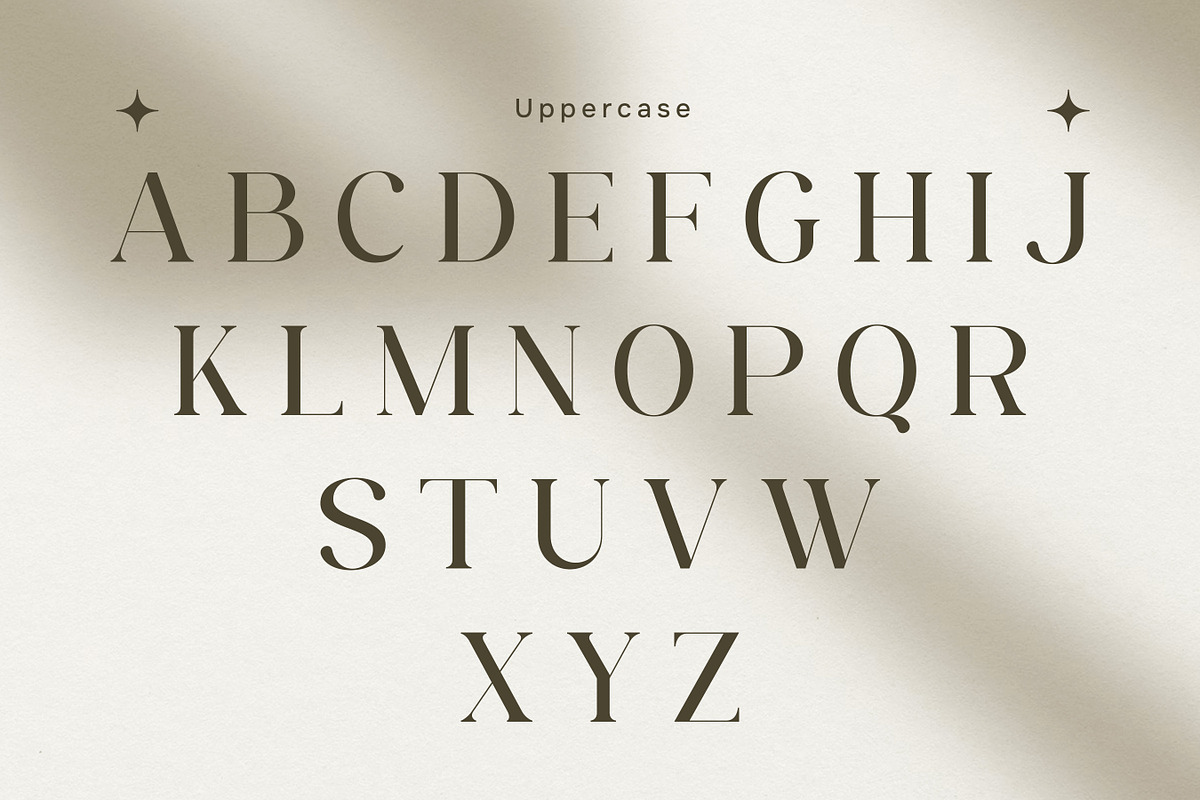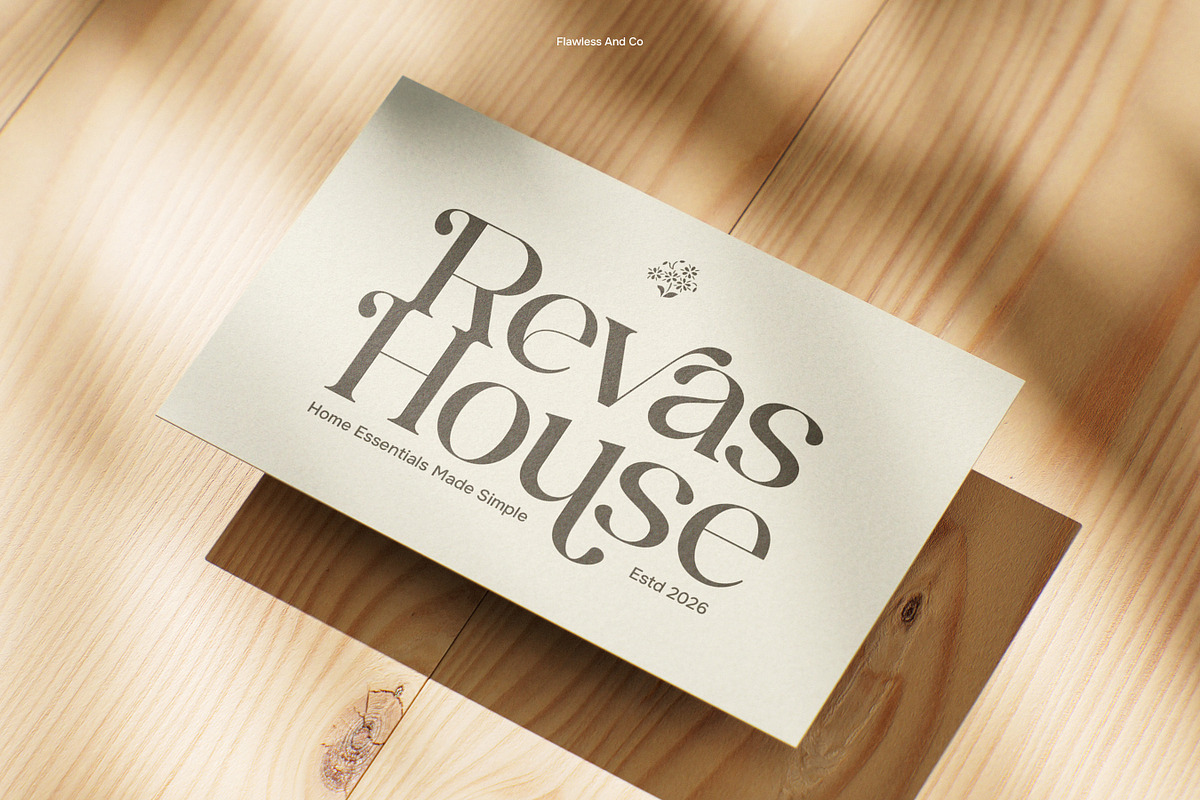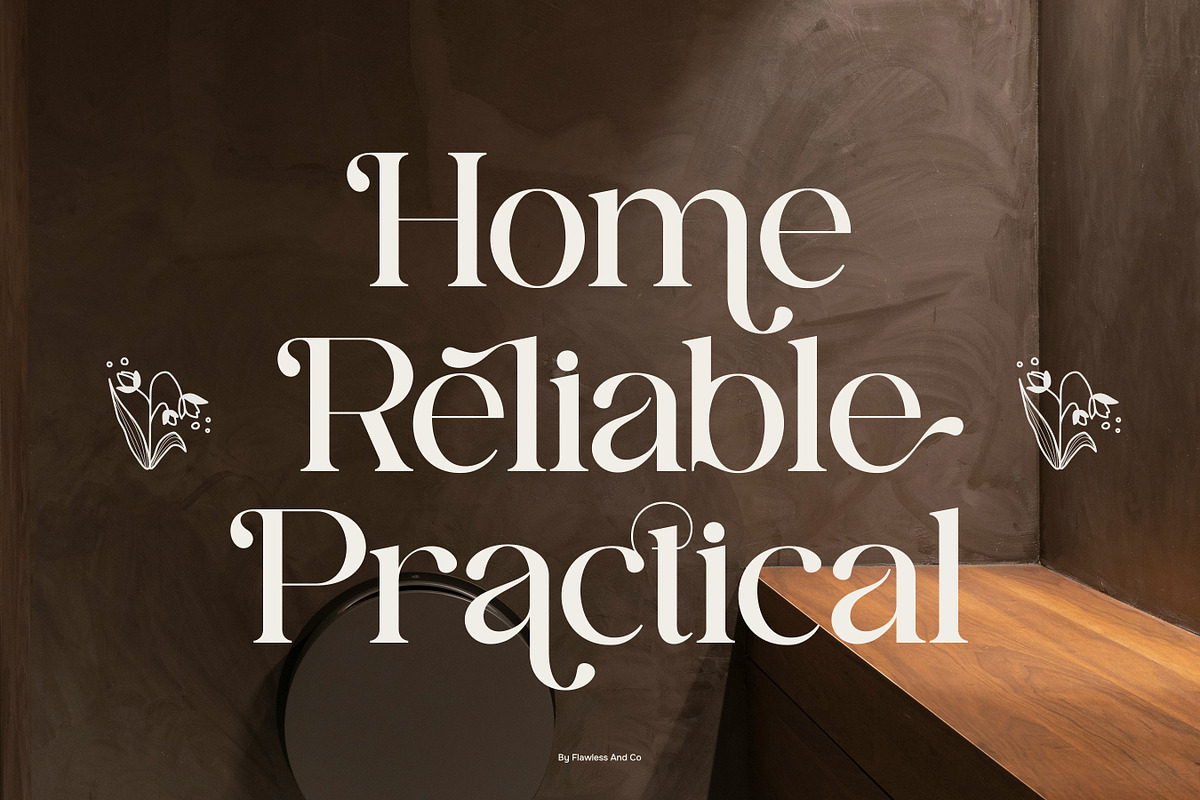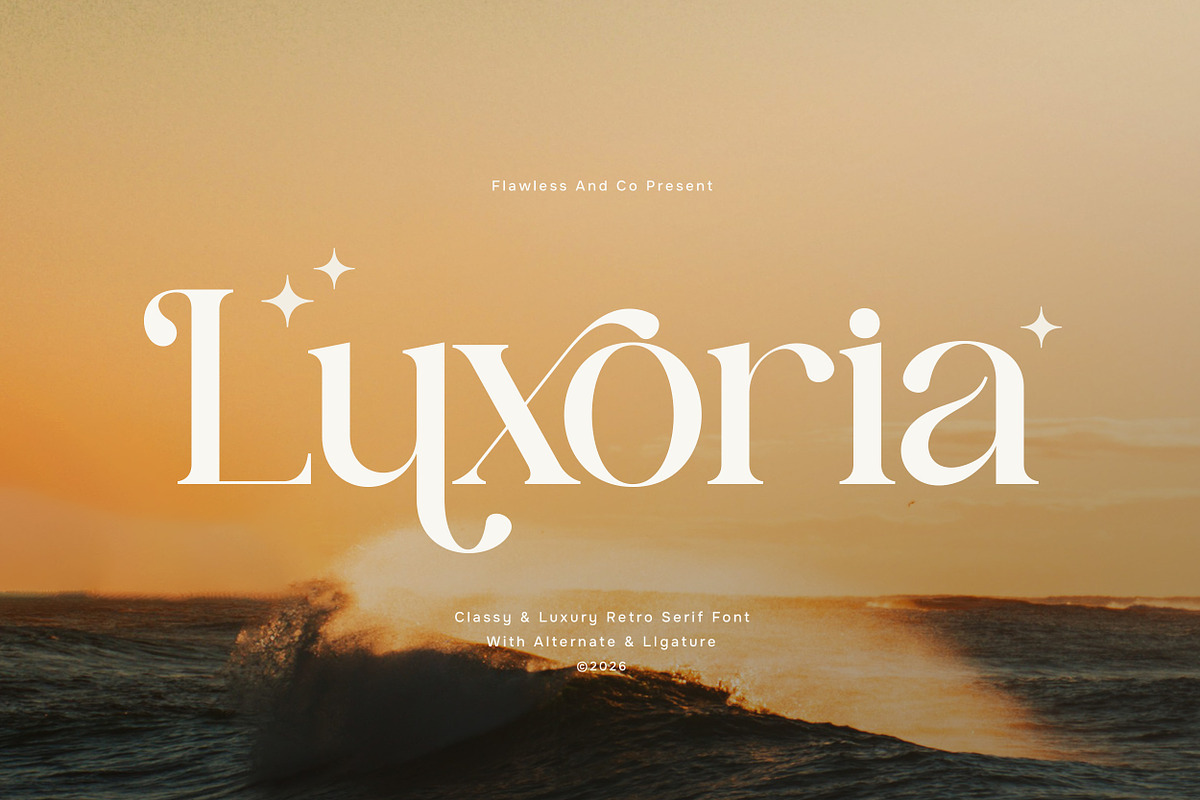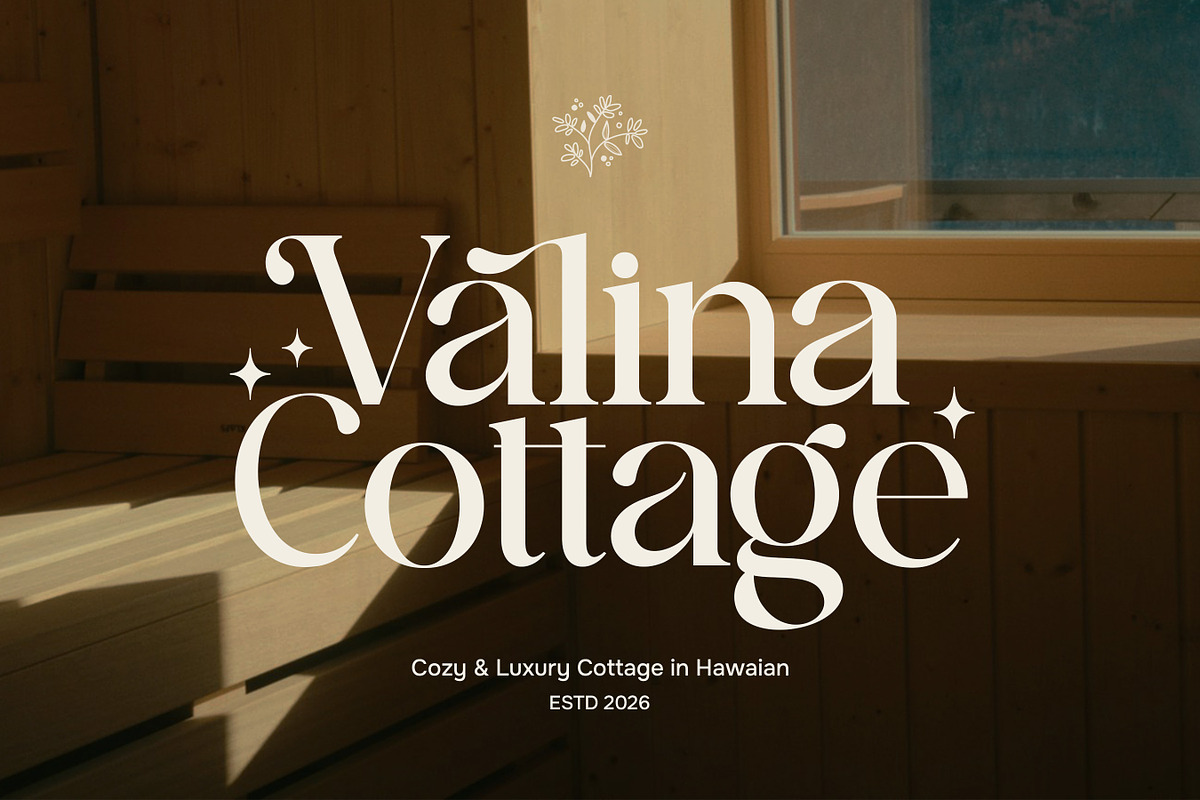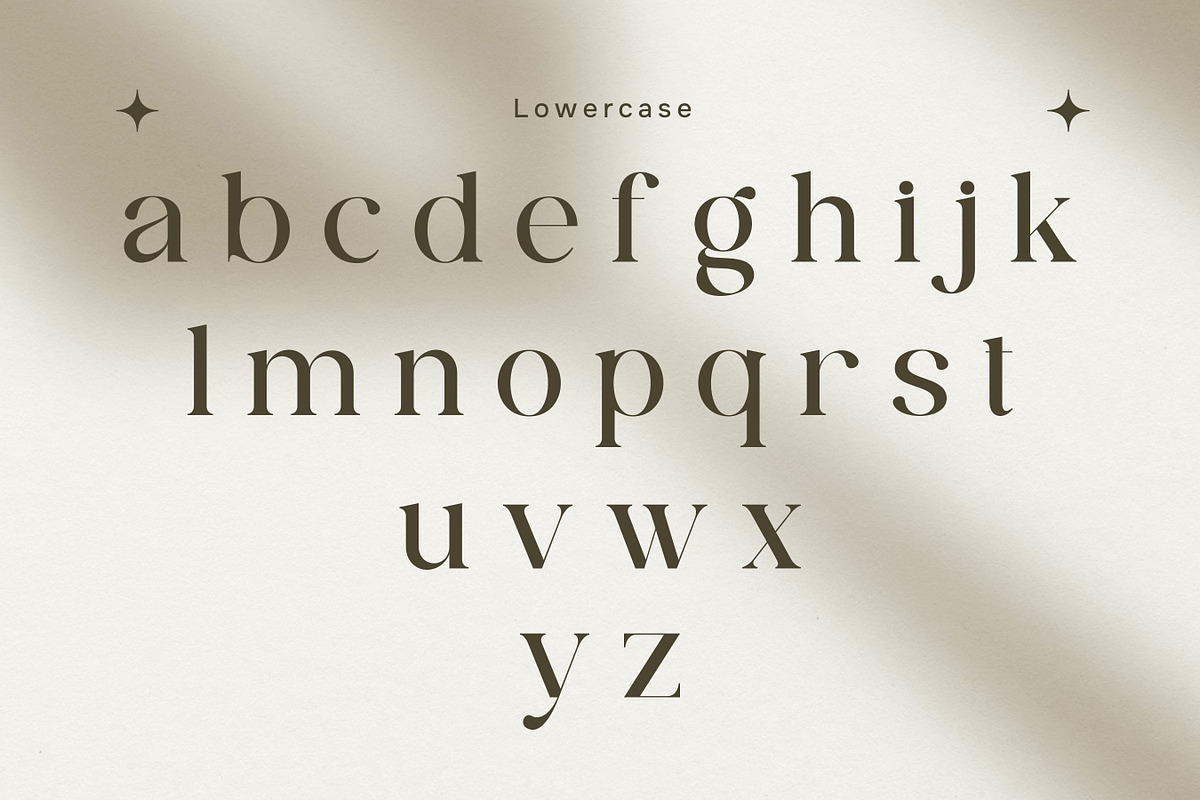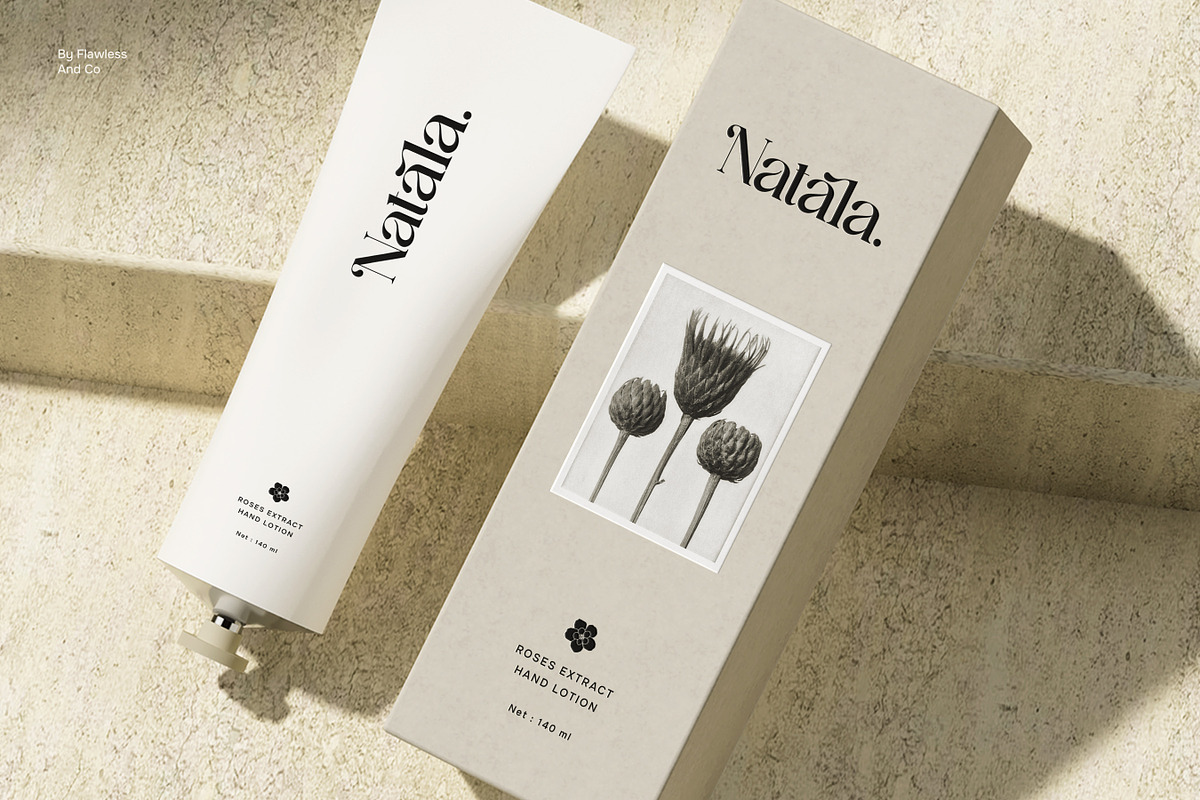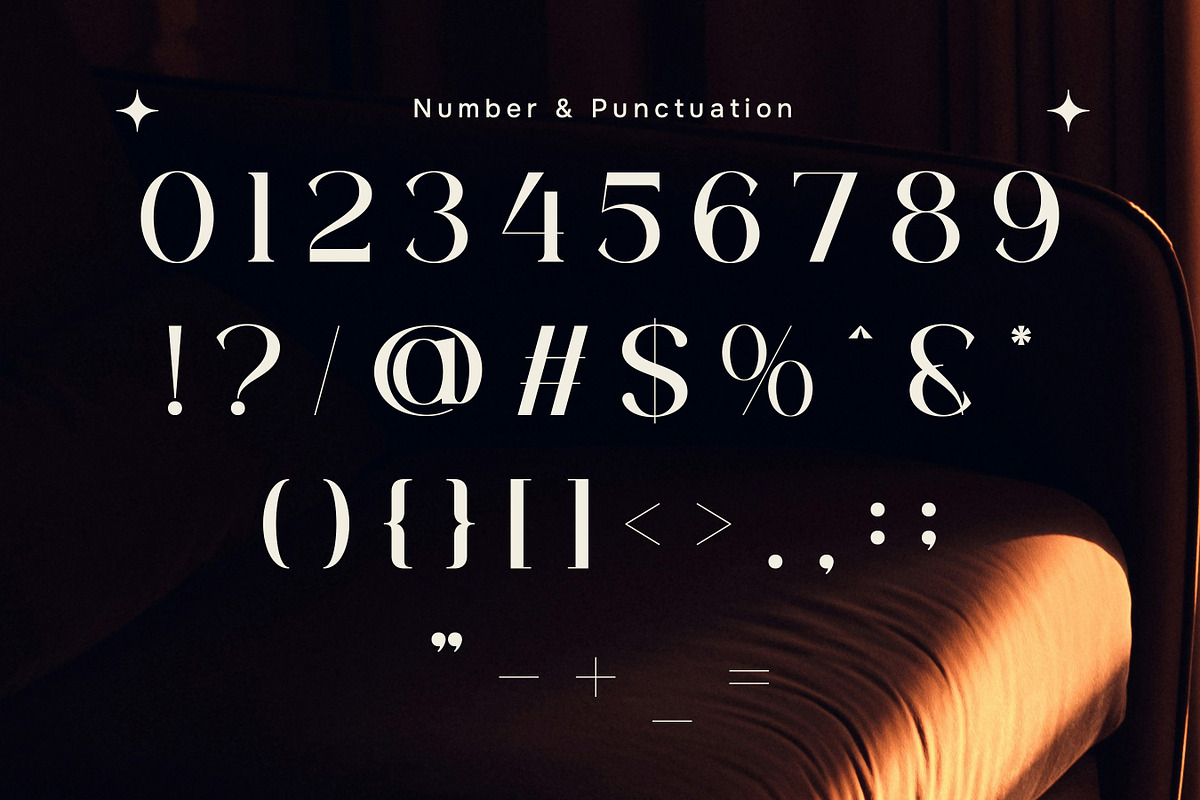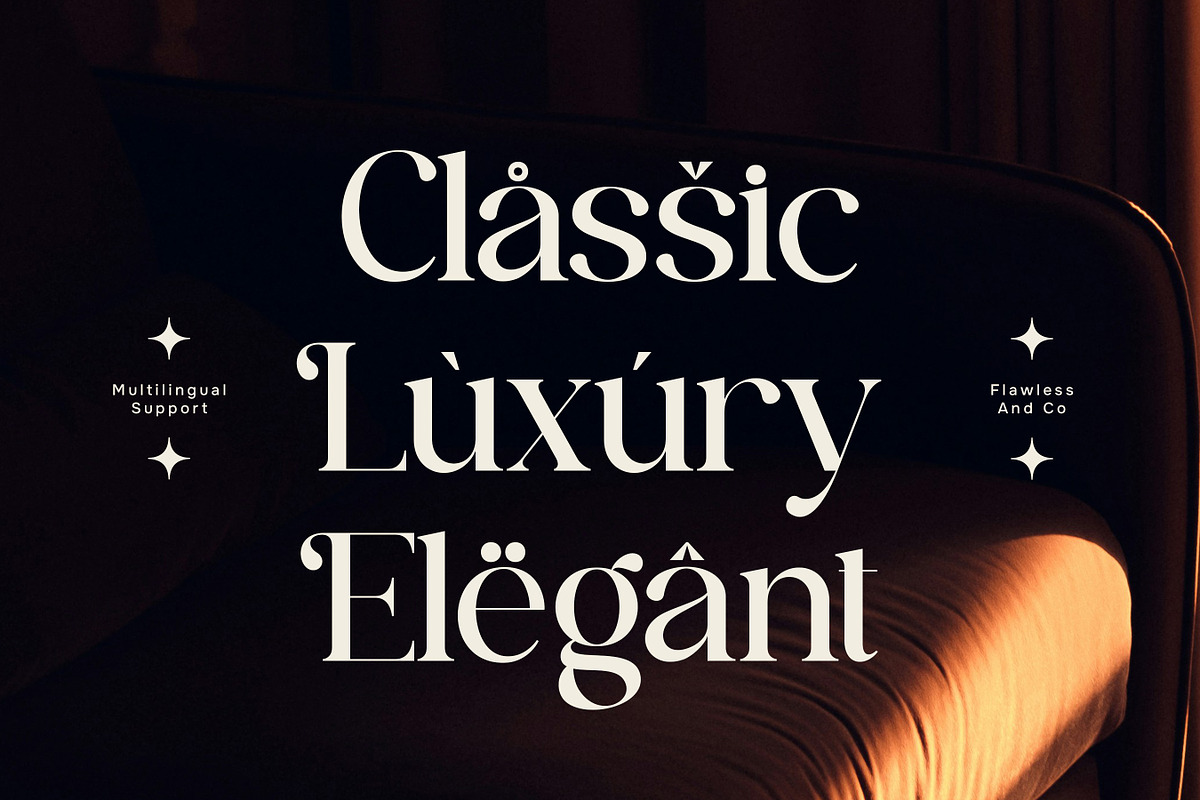
Luxoria - Classy Retro Serif Font
Luxoria – Classy and Luxury Retro Serif Font
Luxoria is a classy, luxury and elegant retro serif font that captures the charm of vintage typography with a refined and sophisticated style. Designed with distinctive serif details, graceful curves, and balanced letterforms, Luxoria presents a timeless aesthetic that feels both nostalgic and luxurious. The font brings together retro character and modern elegance, creating a typeface that stands out with its stylish and polished appearance. Its elegant structure gives designs a sense of prestige and beauty, making it suitable for projects that aim to communicate luxury and refined taste.
Who Should Use Luxoria?
Luxoria is perfect for designers, creatives, and brands looking for a retro serif font that expresses elegance, class, and a luxurious visual identity.
Suitable For:
- Logo and brand identity design
- Luxury and fashion branding
- Editorial layouts and magazine headlines
- Packaging and product labels
- Wedding invitations and stationery
- Social media graphics
- Website headers and digital design
- Elegant display typography